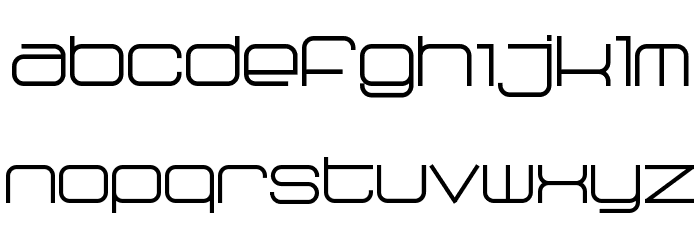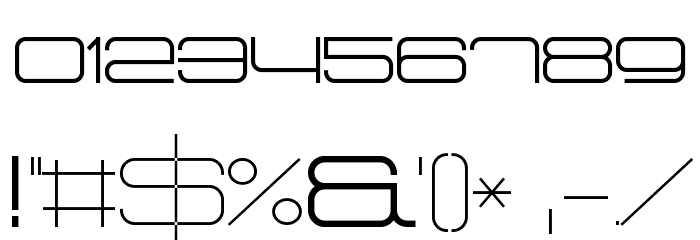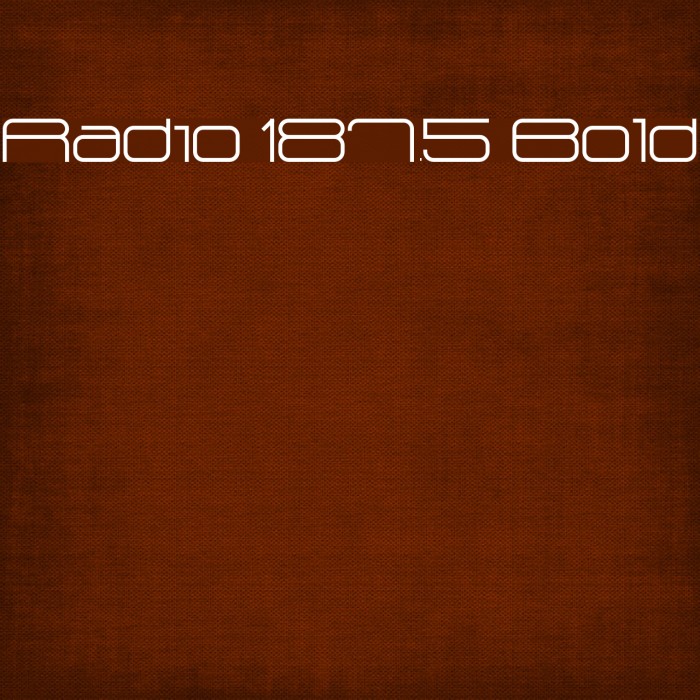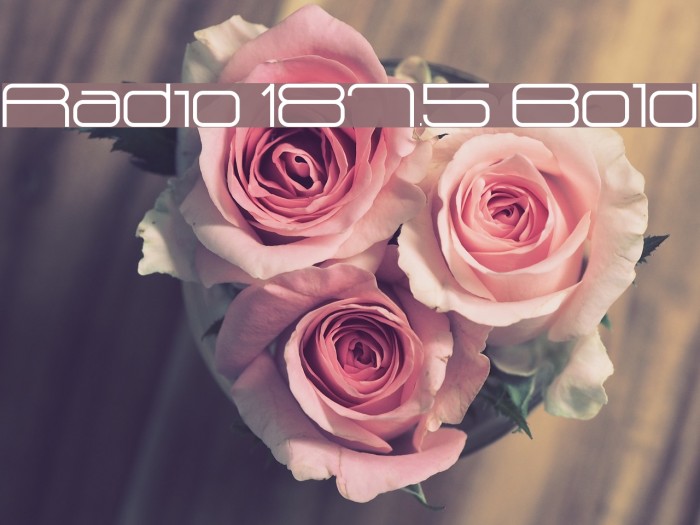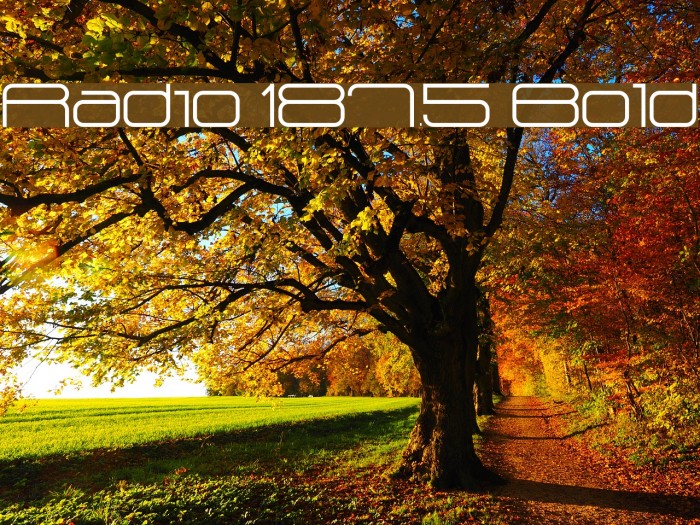
Radio 187.5 Bold Font
This font showcases a futuristic and geometric design with clean, straight lines and rounded edges. The characters are constructed with a consistent stroke width, giving it a uniform appearance. The uppercase and lowercase letters maintain a similar height, creating a cohesive look. The numerals and special characters are designed to match the overall aesthetic, with a modern and sleek appearance. The font's style is reminiscent of digital or technological themes, making it suitable for contemporary designs.
A futuristic, geometric font with consistent stroke width and rounded edges.
- Proposed Projects: Ideal for tech-related branding, digital interfaces, modern posters, and futuristic-themed projects.
- Use Case: Headlines, Logos, Digital interfaces